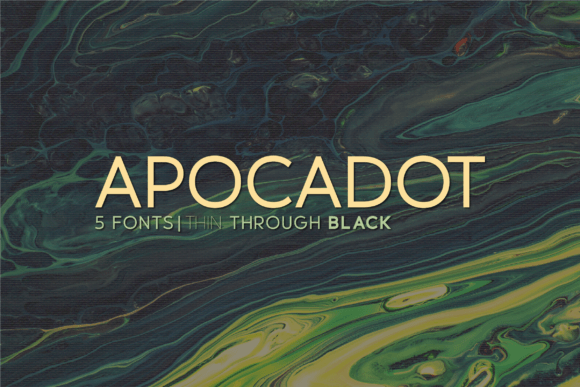
Discover the extraordinary Apocadot Font, a masterpiece created by Huntype that effortlessly embodies elegance, modernity, and adaptability. This sans-serif font family is a must-have for anyone seeking the best fonts for their T-shirt designs.
Apocadot brings a harmonious balance to your creative projects with its five distinctive weights—THIN, LIGHT, REGULAR, BOLD, and BLACK. Each weight offers a unique character, allowing you to convey your message with precision and flair.
Unleash your imagination and let Apocadot elevate your designs to new heights. Its versatility knows no bounds, making it the ultimate choice for designers and content creators alike. Whether you're aiming for a subtle and delicate touch or a bold and impactful statement, Apocadot empowers you to express your vision with brilliance.
Crafted with meticulous attention to detail, this font family exudes sophistication and contemporary style. Its seamless blend of timeless elegance and modern aesthetics ensures that your projects will stand out from the crowd, leaving a lasting impression on your audience.
Apocadot is not just a font; it's a powerful tool that unlocks endless creative possibilities. Let it inspire you to create captivating T-shirt designs, captivating logos, stunning branding materials, eye-catching websites, and much more.